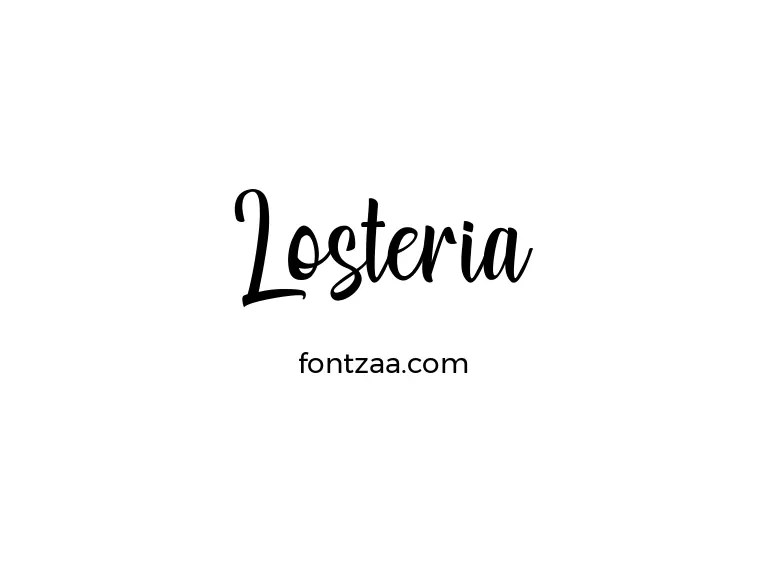
Losteria Font is a modern typeface published by Andri Ardianto + Madatype Studio. The download includes 1 font file (TTF) with 81 glyphs, covering uppercase and lowercase letters and numerals. It suits logos, wordmarks, branding, posters, packaging and promotional graphics, particularly at larger sizes where the letter shapes are easier to see.
Pairing and Use
For body text, pair Losteria Font with a neutral sans such as Open Sans or Inter and keep the font itself for headlines and key words.